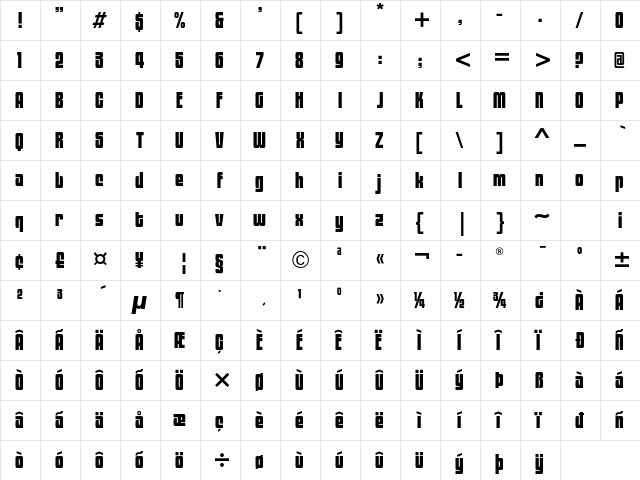
Black Tulip ITC Std Regular
| Designer | Dudley Rees |
Design Context for Black Tulip ITC Std Typeface
Black Tulip ITC Std offers clean, dependable letterforms without strong stylistic allegiance, making it a practical choice for designers who need flexibility.